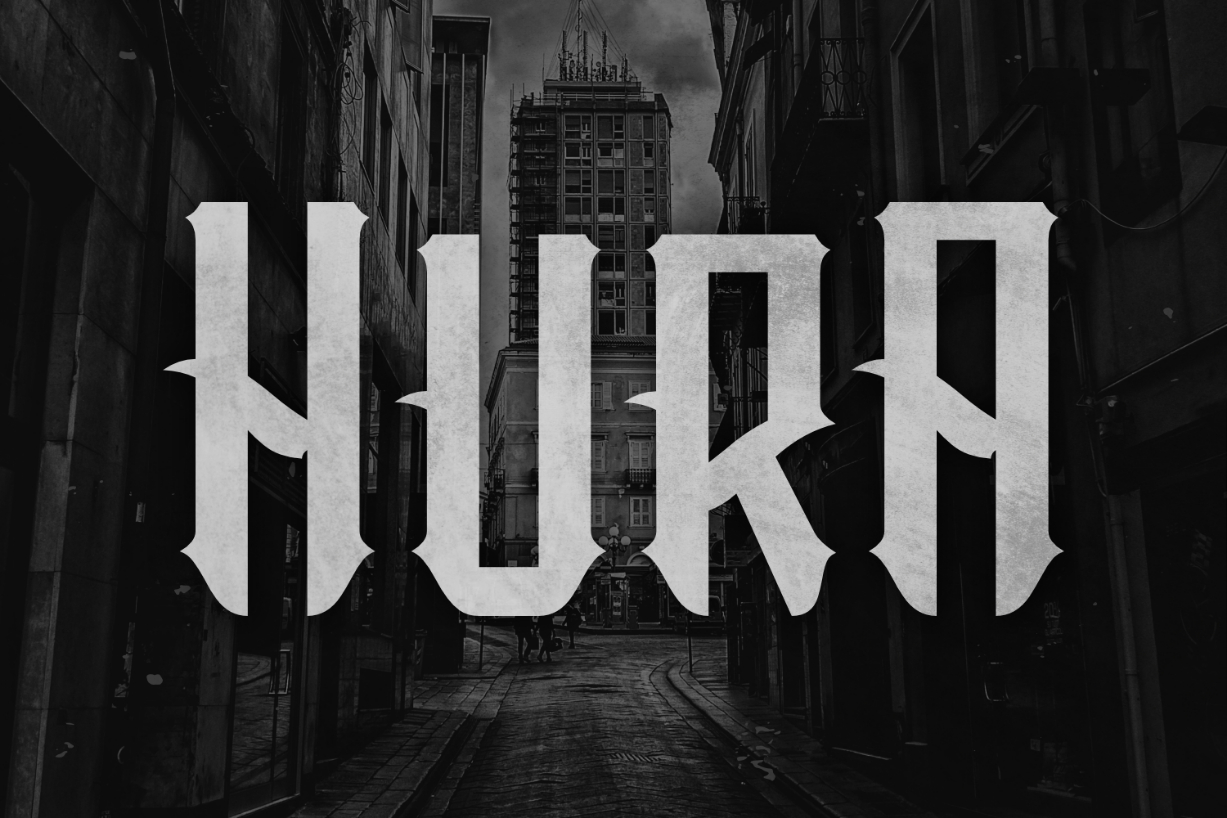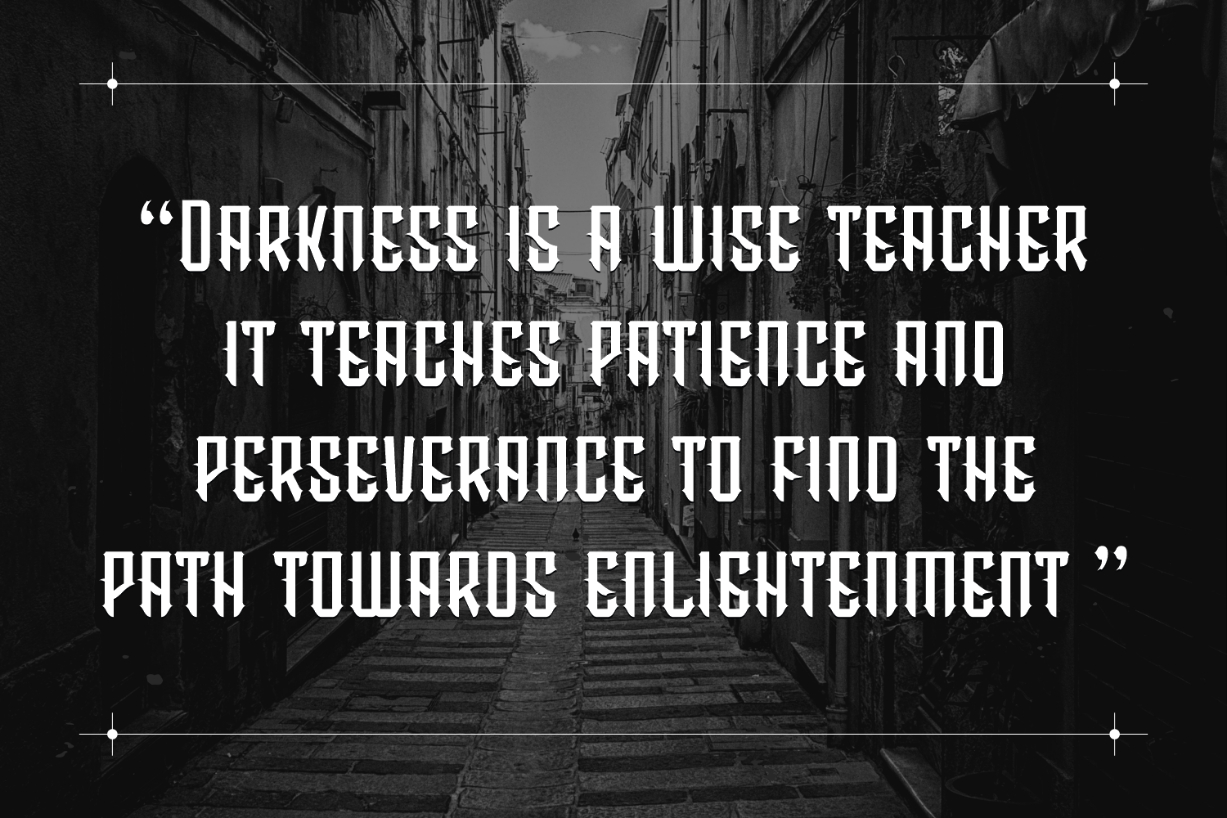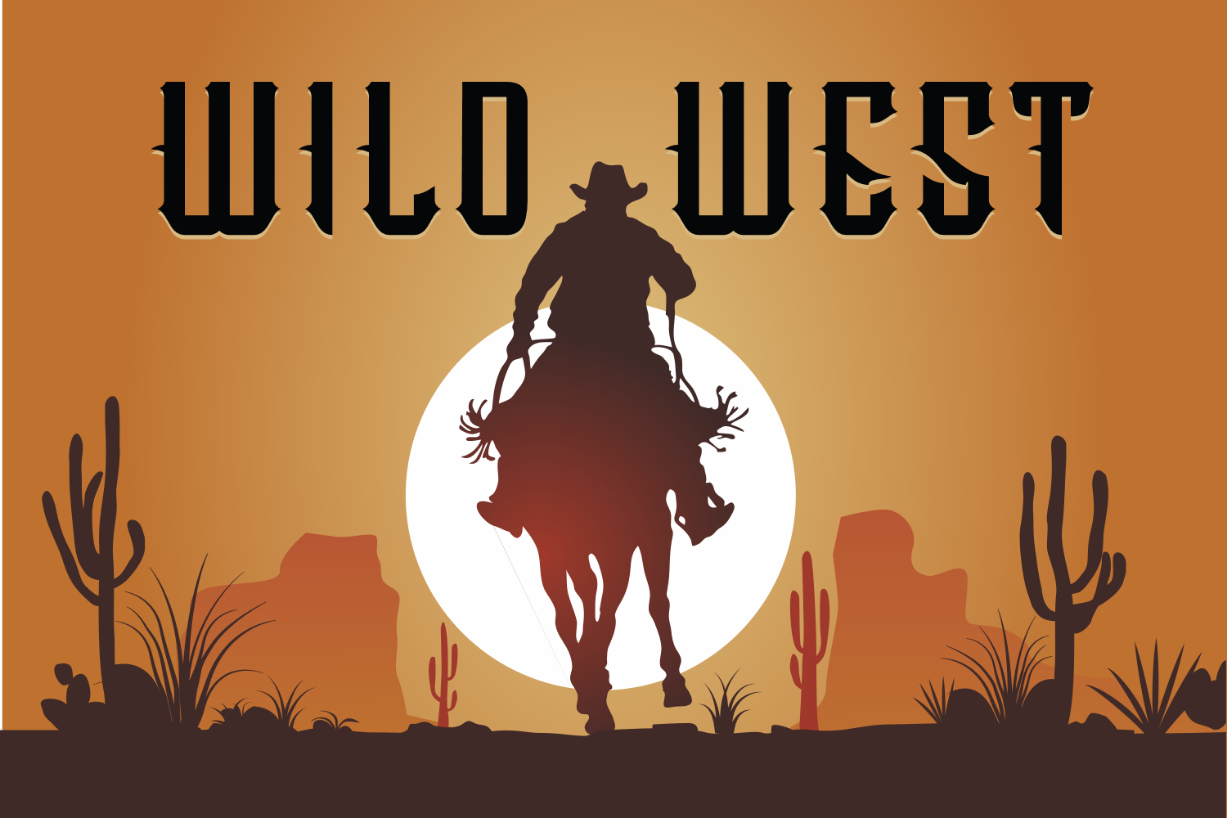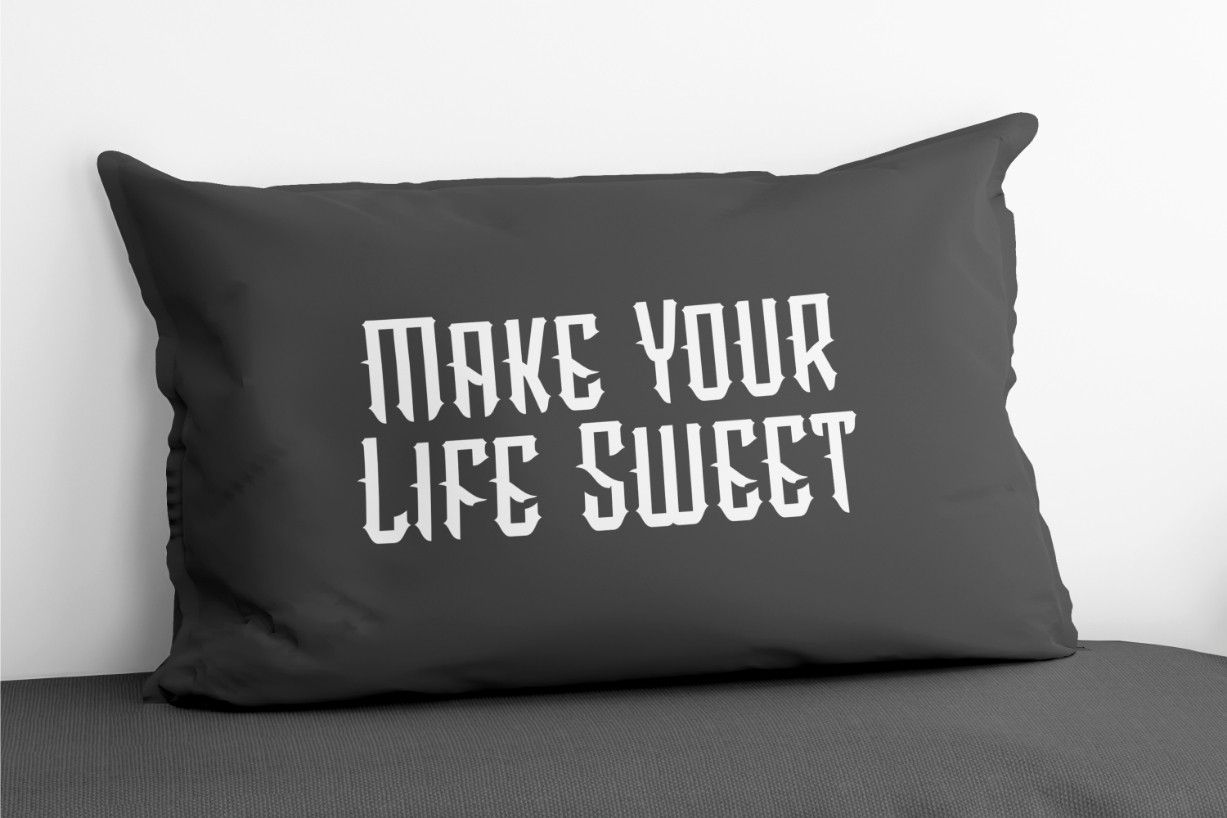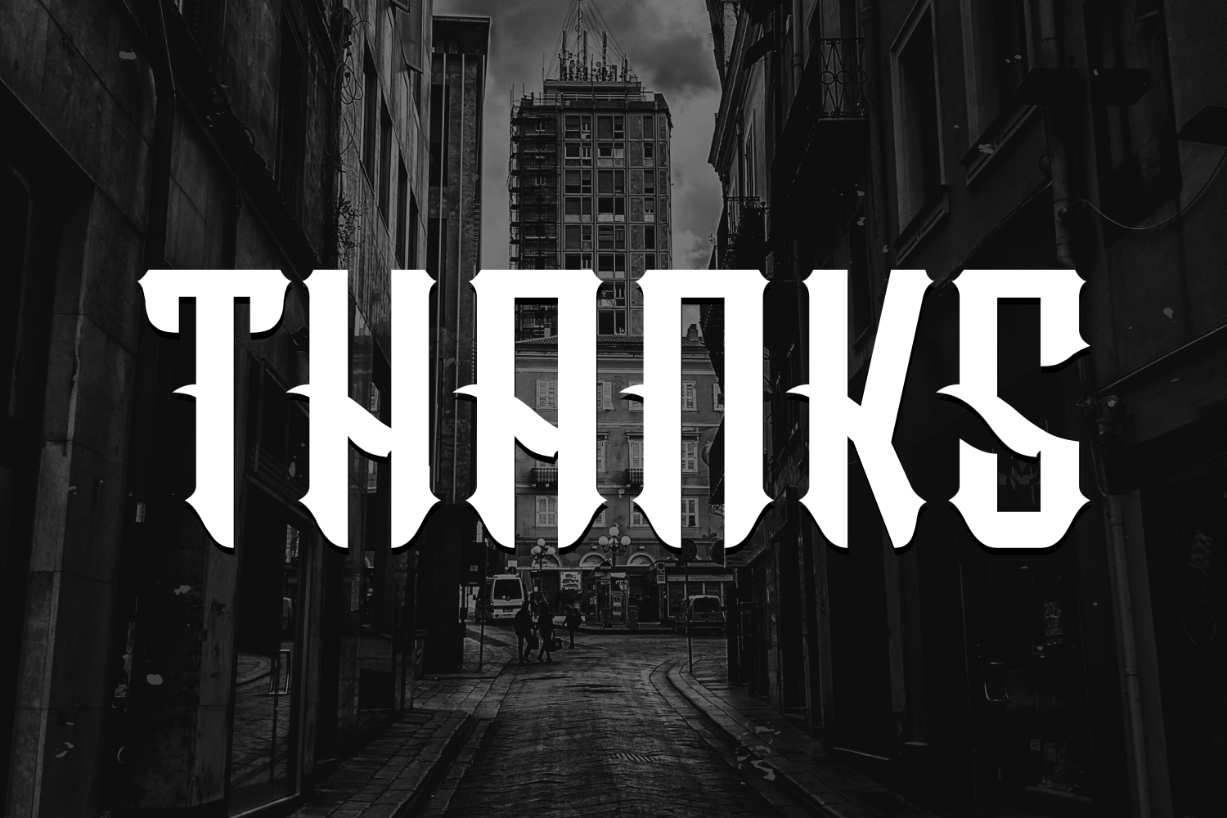
Hura Font
About Hura Font
Hura is a stylish and captivating blackletter font. The sharp and pointy ending strokes of the characters give this font its unique look. Add it to your fonts library, and use it to bring life and personality to your creative ideas!